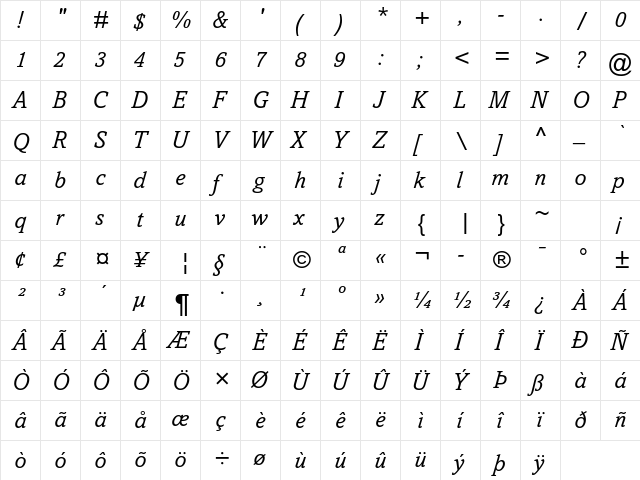
Amasis eText Italic
Design Context for Amasis eText Typeface
Amasis eText is a composed and adaptable typeface that performs quietly and consistently across a wide range of design contexts. The slanted form adds forward momentum and visual energy.
Pro Tip: Use Amasis eText for emphasis, pull quotes, and subheadings where its slanted energy can add rhythm to the layout.